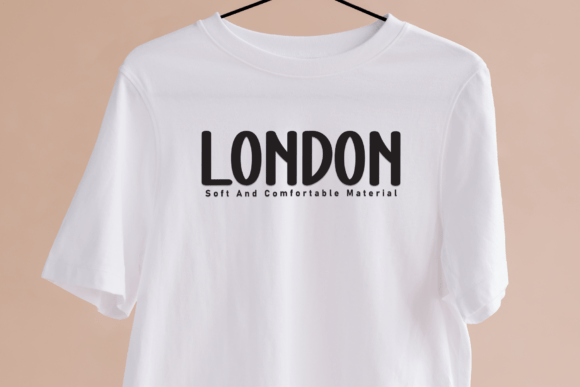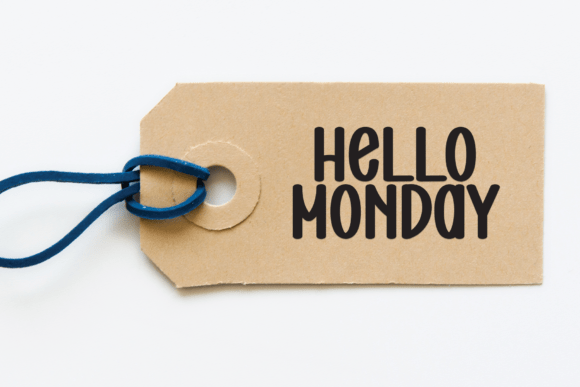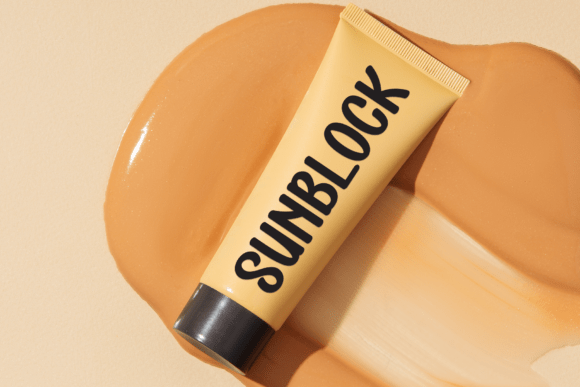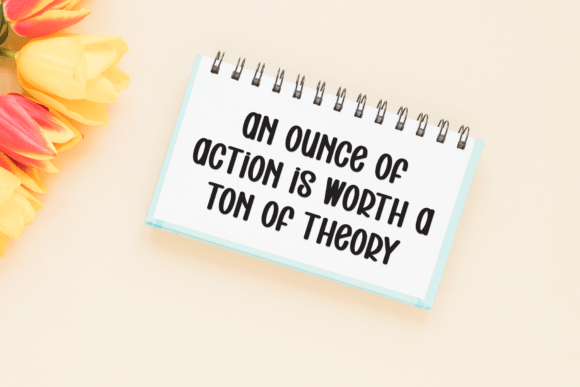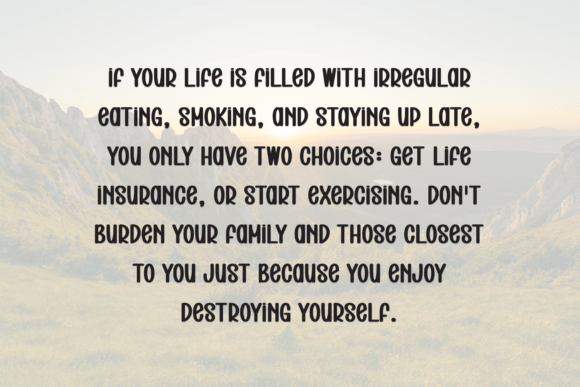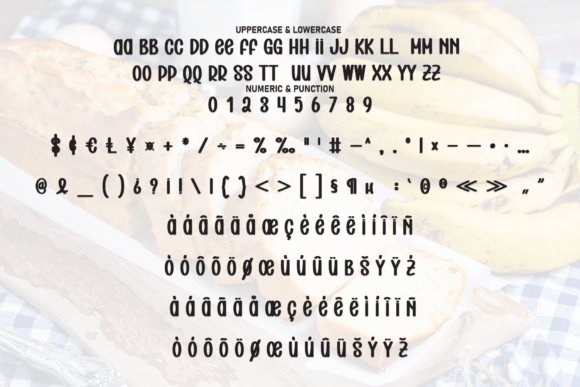
The Perfect Slice of Design: Discovering Banana Shortcake Font
As a designer, there’s nothing quite like the thrill of finding the perfect font to elevate a project. It’s that moment when the words come together, the message shines through, and the design feels complete. For many, it’s a moment of pure joy – like biting into a warm, freshly baked banana shortcake on a sunny afternoon. It’s a feeling that’s hard to replicate, but with the right font, it’s definitely possible.
Enter Banana Shortcake Font, a delightful display font that combines simplicity with a friendly, approachable vibe. Designed to add a warm and inviting touch to any design, this font is perfect for branding, headlines, packaging, and digital content. With its crisp structure and versatile style, it delivers clarity and charm in equal measure, making it a valuable addition to any designer’s toolkit.
Banana Shortcake Font Key Features
- Font Family: Banana Shortcake Font is a unique, hand-drawn font that is perfect for creating whimsical and playful designs.
- Unique Characteristics: Banana Shortcake Font features a distinctive, hand-drawn style with irregular shapes and organic lines, giving it a charming and playful feel.
- Character Set: The font includes a comprehensive character set, including uppercase and lowercase letters, numbers, punctuation marks, and special characters.
Banana Shortcake Font Review
I recently had the chance to try out the Banana Shortcake Font, and I’m here to give you the lowdown on what I think.
- Cute and playful personality: Banana Shortcake Font has a fun, whimsical feel to it that’s perfect for adding a touch of personality to your designs.
- Good for branding: With its unique and recognizable style, this font could be a great choice for companies or individuals looking to establish a strong brand identity.
- Easy to read: Despite its playful nature, the font is still easy to read and understand, making it a great choice for body text or headings.
- May not be suitable for formal designs: Banana Shortcake Font’s playful style may not be the best fit for formal or professional designs.
- Not as versatile as some other fonts: While the font is cute and fun, it may not be the most versatile choice for a wide range of design applications.
- Some letterforms may be tricky to read: Depending on the size and context, some of the font’s letterforms may be tricky to read or distinguish from one another.
Overall, I think Banana Shortcake Font is a fun and playful choice that could be a great addition to your design toolkit – but it’s not without its limitations. Use it wisely, and you’ll be sure to add a touch of personality to your designs!
Tips for Getting the Most Out of the Banana Shortcake Font
Use the Banana Shortcake font for playful and whimsical designs, such as:
- Children’s party invitations
- Food and dessert labels
- Summer-themed posters
Experiment with different font sizes and colors to create a unique and eye-catching design.